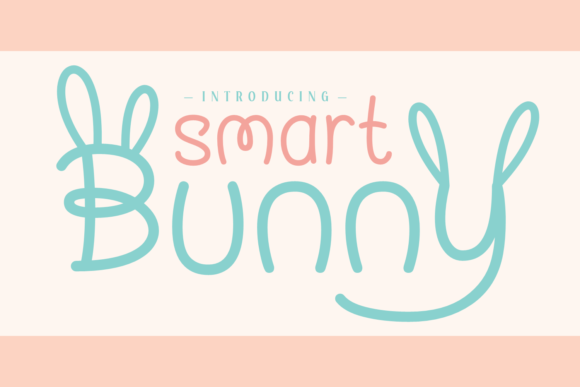
Say goodbye to boring fonts and embrace the charm of "Smart Bunny" - a playful script font that oozes friendliness and fun. This captivating font is a creation of Dito (7NTypes), and it's sure to become your new favorite for crafting heartwarming designs.
Picture this: you're working on a project that calls for a font that exudes warmth and approachability. "Smart Bunny" steps up to the plate, ready to elevate your designs to new heights. Its playful personality shines through in every letter, making it perfect for projects that aim to connect with audiences on a personal level.
With "Smart Bunny" by your side, you'll have a font that's as versatile as it is charming. Use it to create eye-catching logos that draw attention like a magnet. Design invitations and greeting cards that feel like warm hugs. Craft social media posts that pop off the screen with personality. The possibilities are endless!
But "Smart Bunny" isn't just a pretty face. It's also incredibly user-friendly. PUA encoding makes accessing all the amazing glyphs and ligatures a breeze, giving you the power to add intricate details and flourishes to your designs with ease.
So, whether you're a seasoned designer or just starting out, "Smart Bunny" is the perfect font to add a touch of whimsy and warmth to your creative projects. Download it today and let your imagination run wild!